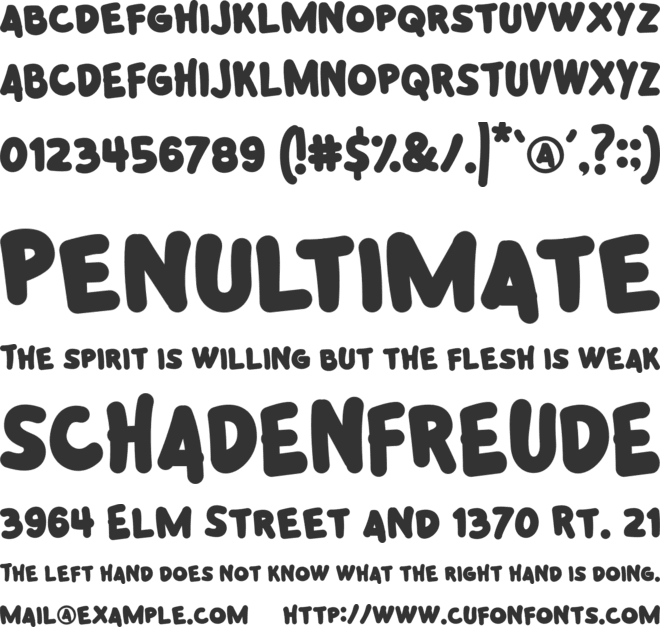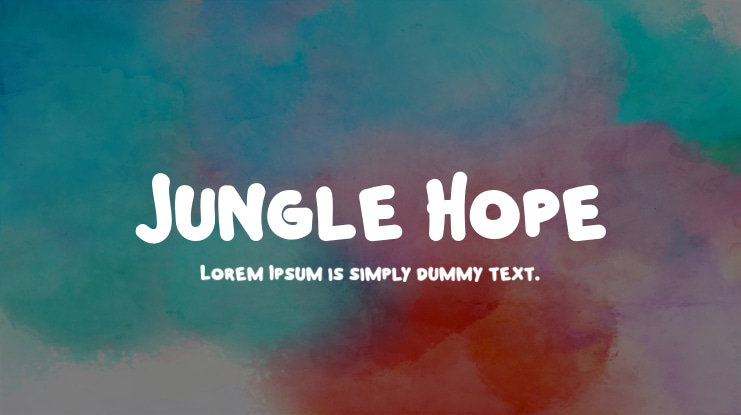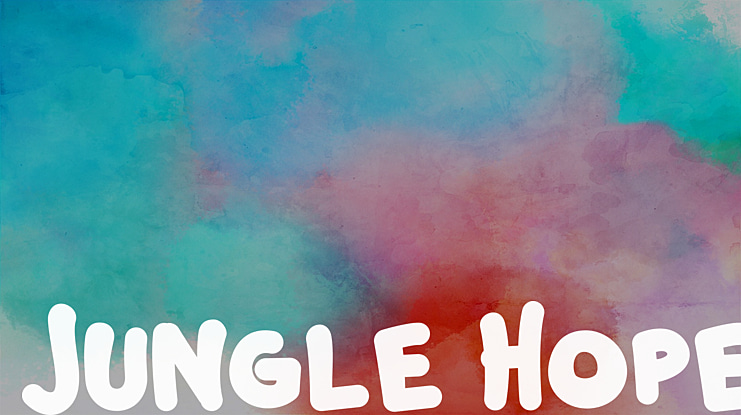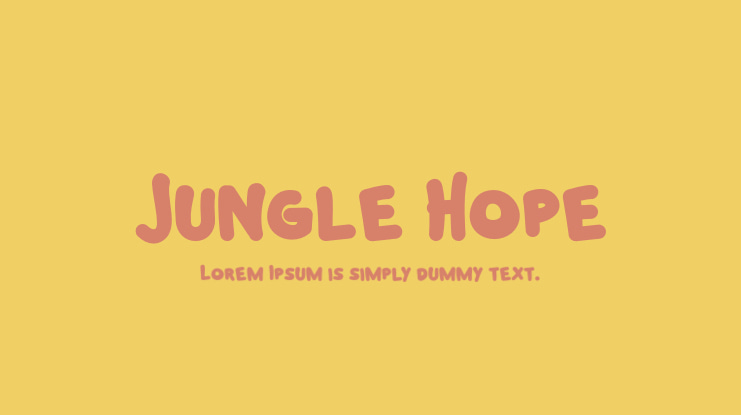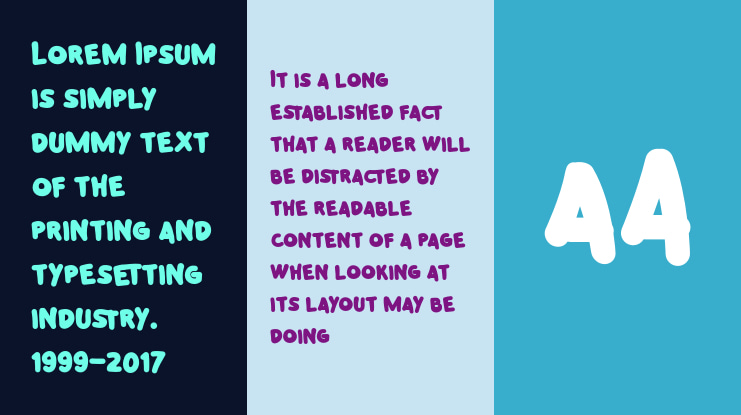
Jungle Hope Font
Jungle Hope is a fun display font with adorable feel. Suited for children book with an animal theme, children storybook, or playground.Also whether you’re using it for crafting, digital designing, presentations or greeting cards making, gift card, birthday invitations,  it’s perfect!Full Version Download Here :https://typefactory.co/product/jungle-hope-fun-handwritten-font/https://www.creativefabrica.com/product/jungle-hope/ref/501262/
Jungle Hope font preview